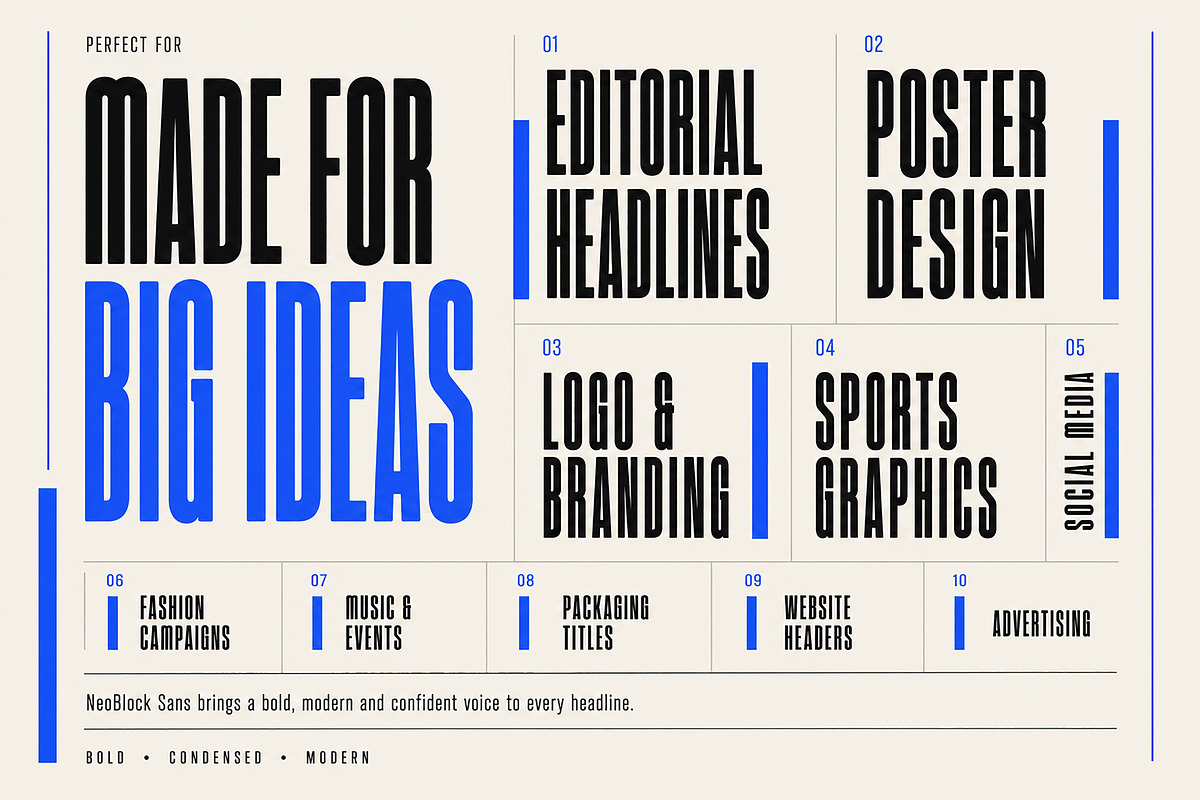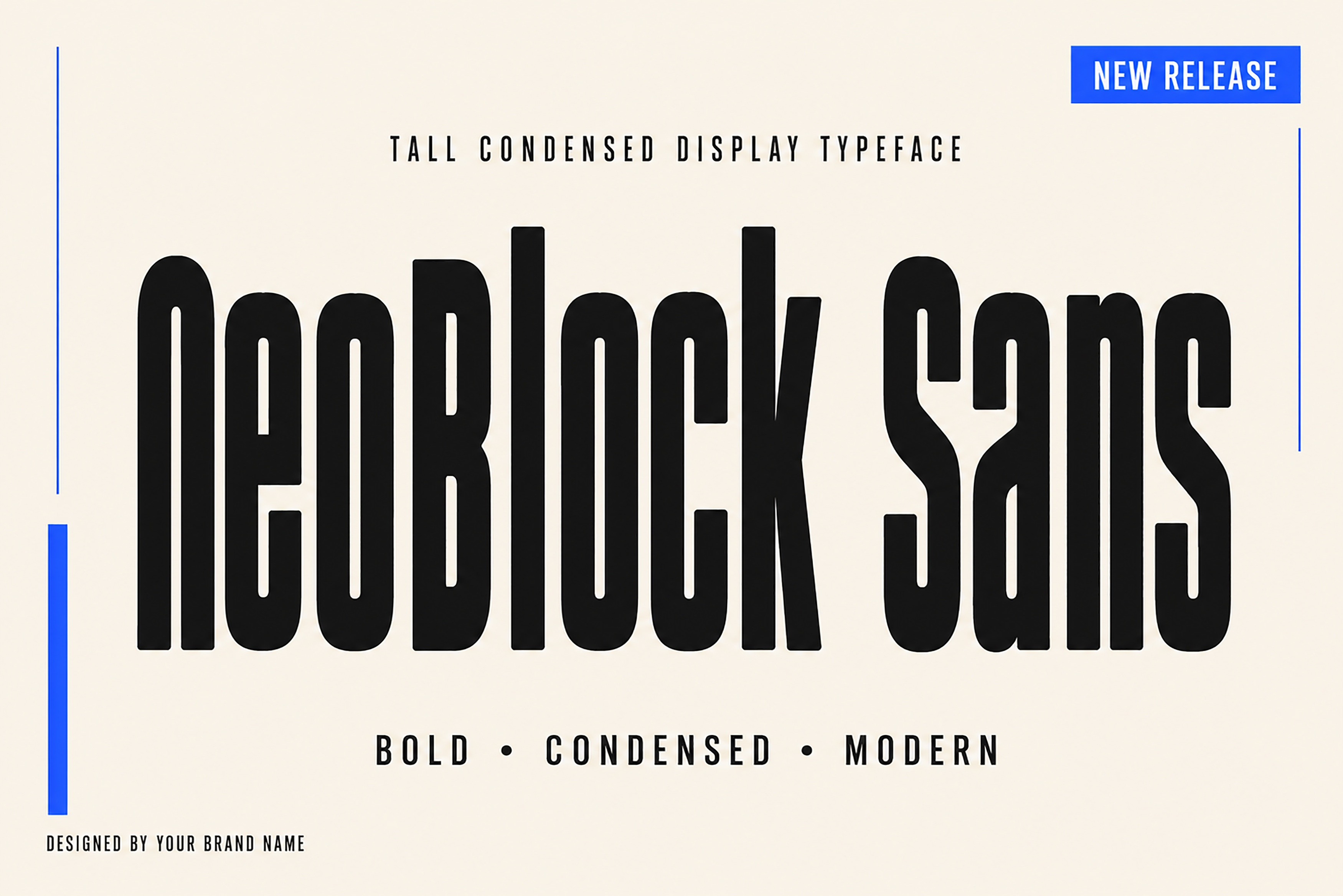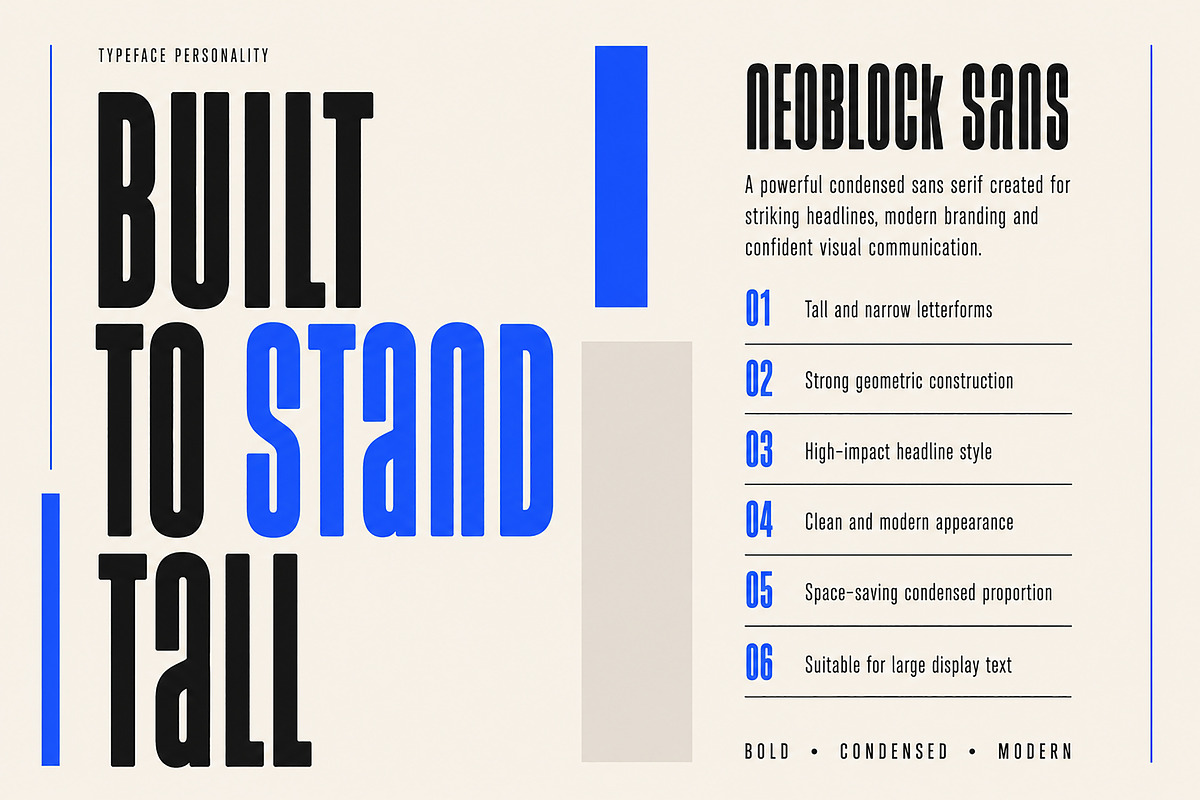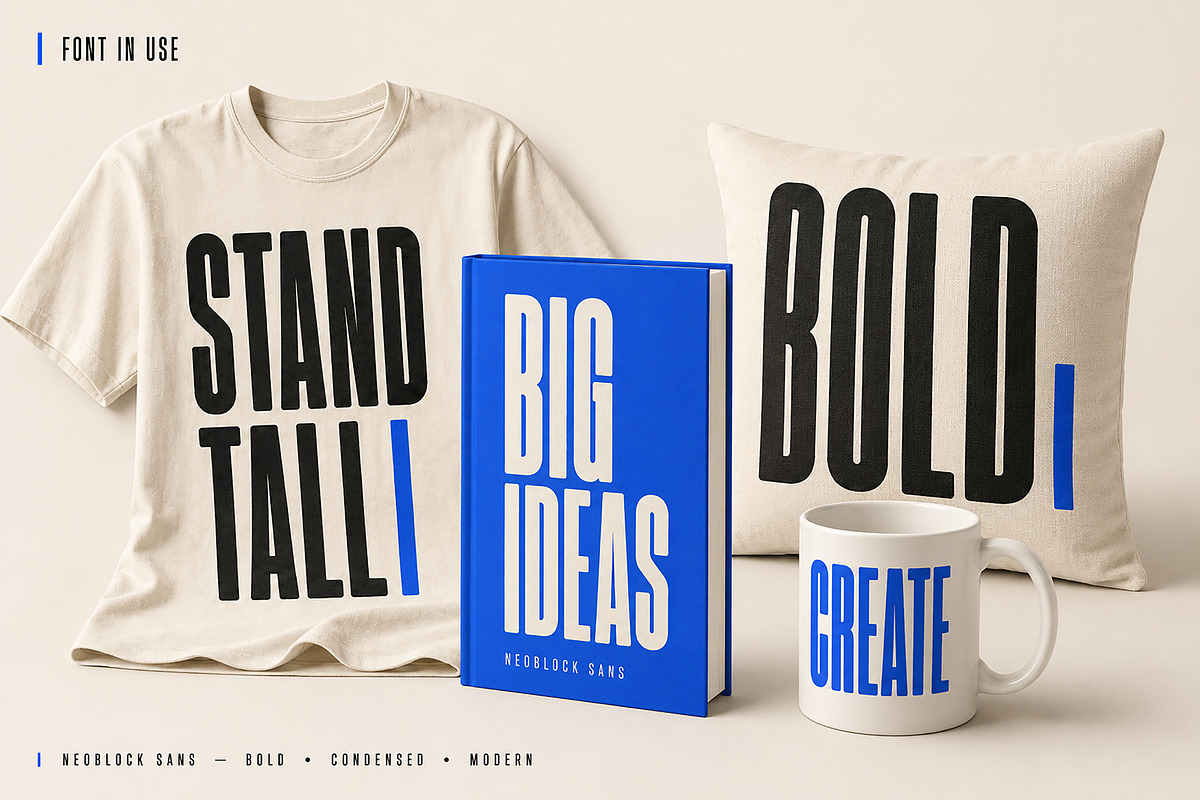
NeoBlock Sans – Bold Display Font
NeoBlock Sans – Bold Condensed Display Font
NeoBlock Sans is a bold, tall and condensed display typeface designed for powerful headlines, modern branding, posters, editorial layouts and attention-grabbing visual communication.
Meet NeoBlock Sans, a bold condensed display font created to make every message stand tall.
Featuring tall letterforms, narrow proportions and a strong modern structure, NeoBlock Sans delivers maximum visual impact while using space efficiently. Its distinctive appearance makes it an excellent choice for short headlines, titles and designs that need a confident and memorable typographic voice.
Whether you are creating posters, branding, editorial layouts, sports graphics, apparel designs or social media content, NeoBlock Sans adds a bold and contemporary character to your work.
Its condensed construction allows you to create large, striking typography without taking up excessive horizontal space. Use it at large sizes to showcase its powerful shape and unique personality.
Bold condensed display style
Tall and narrow letterforms
Strong visual impact
Clean and modern construction
Space-saving proportions
Clear appearance at large sizes
Suitable for print and digital projects
Editorial headlines
Poster designs
Logos and branding
Sports graphics
Fashion campaigns
Music and event promotions
Packaging titles
Apparel and T-shirt designs
Book covers
Website headers
Social media content
Advertising campaigns